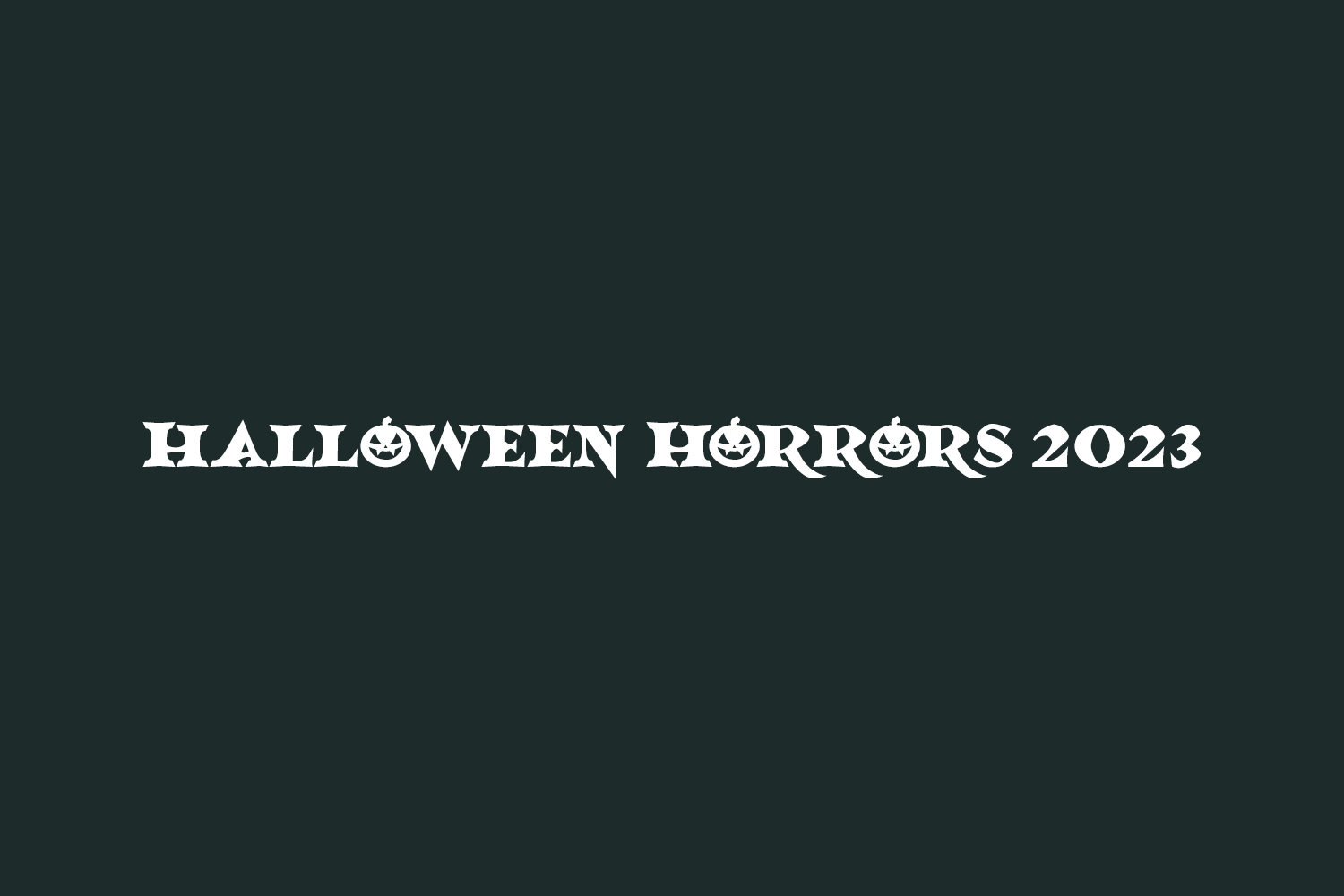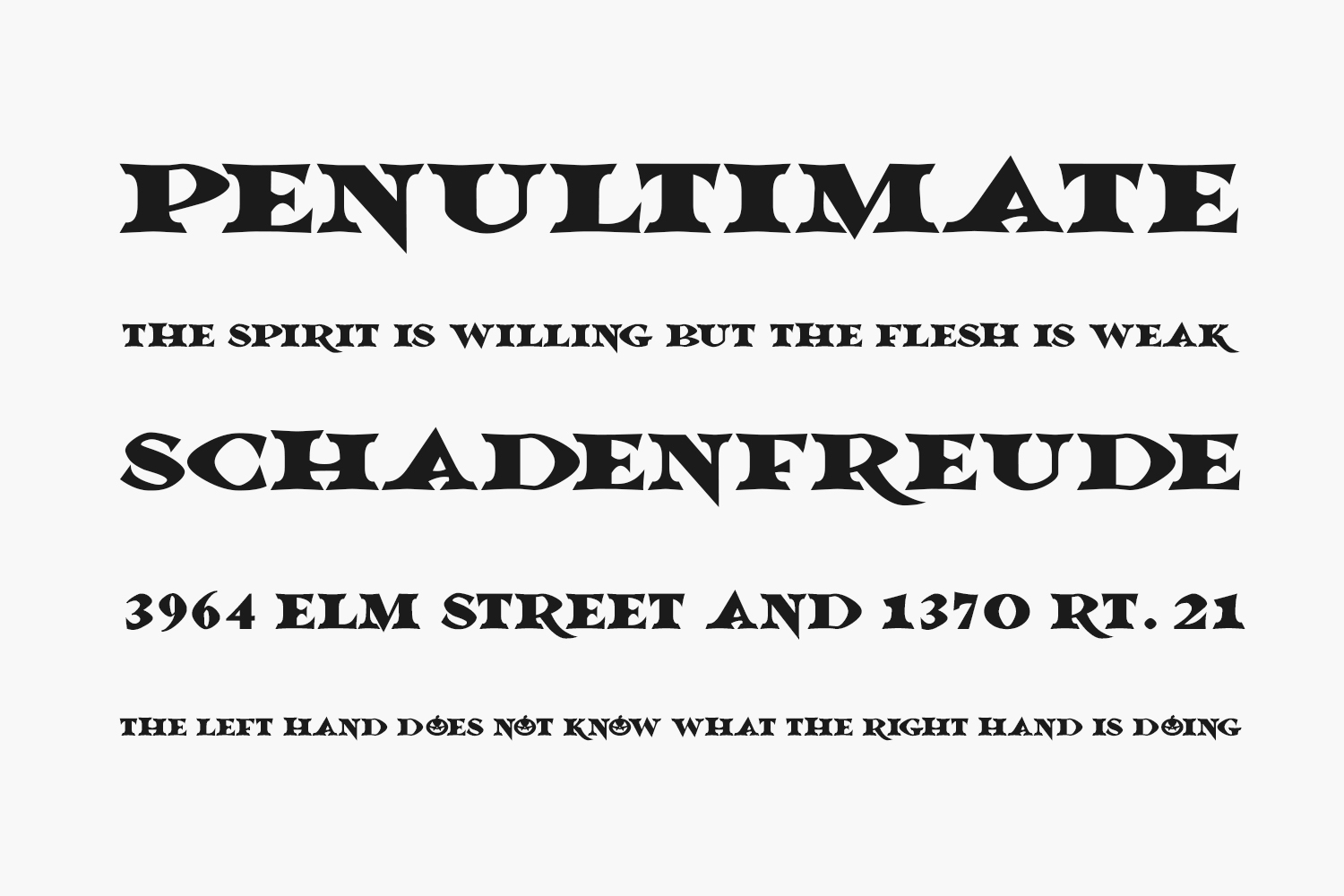
Halloween Horrors 2023 Free Font Family is a high-impact horror font with a sleek, ancient malevolence. It’s the ideal choice for Halloween-themed designs, spine-chilling horror events, and a wide range of fantasy projects that demand an eerie and impactful style. Embrace the dark allure of this font for your creative endeavors. Halloween Horrors 2023 Free Font Family is free for personal use only. Please purchase the full version for commercial use.